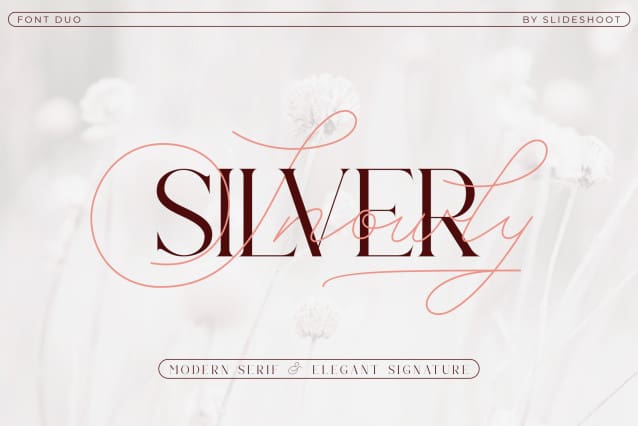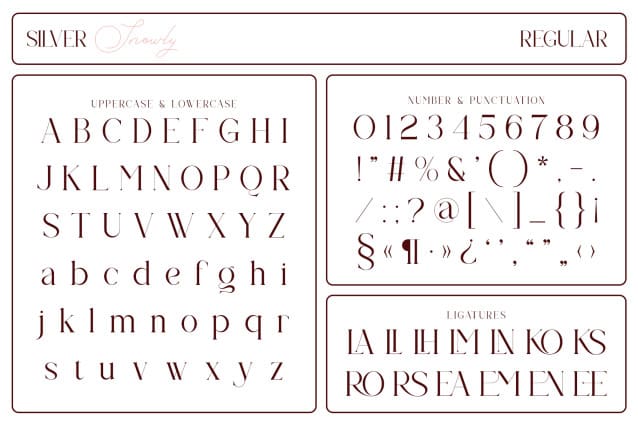
SILVER SNOWLY FONT
Silver Snowly Font is an elegant Duo serif Font combined with a handwritten script font that will add elegance and style to your designs. This duo font brings a classy and elegant aesthetic making it perfect for headlines, logos, covers, posters, quotes, magazines, wedding invitations, product packaging, social media, marketing materials, and more. Its stylish alternation and binding make this font a perfect match for any project.